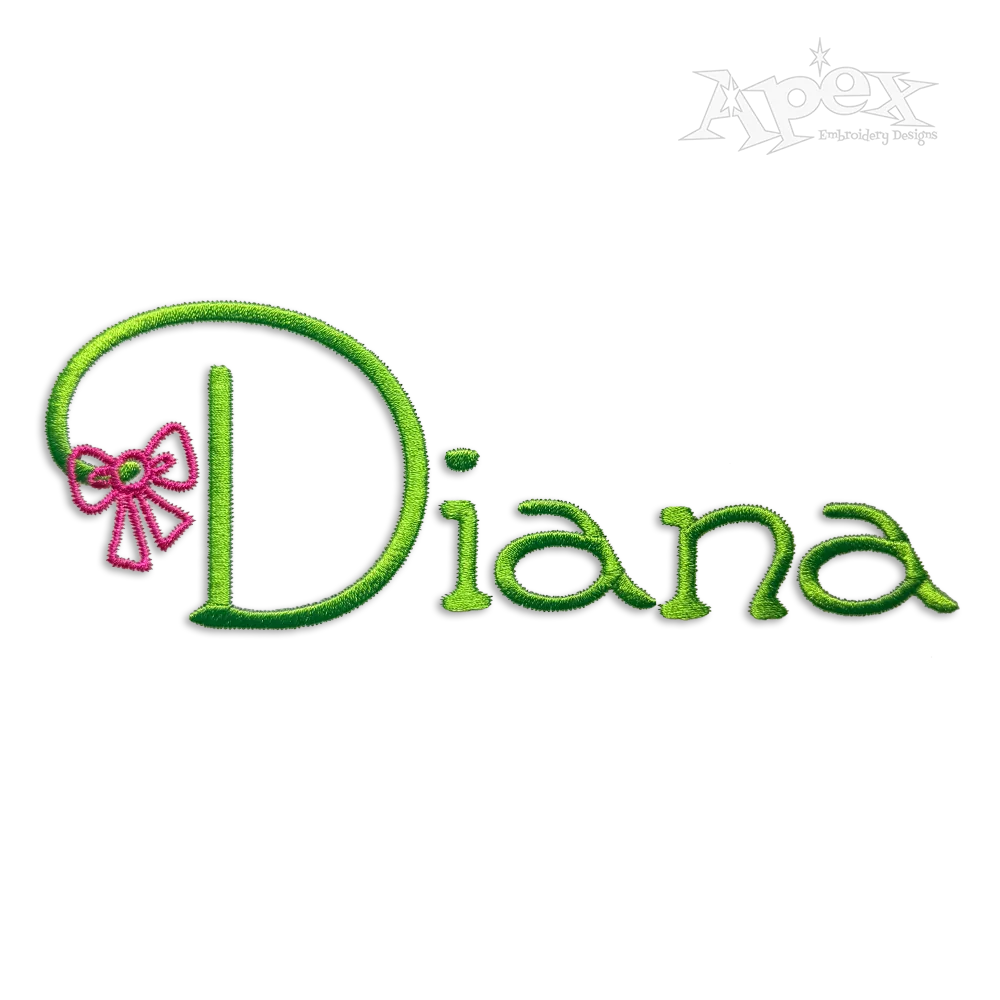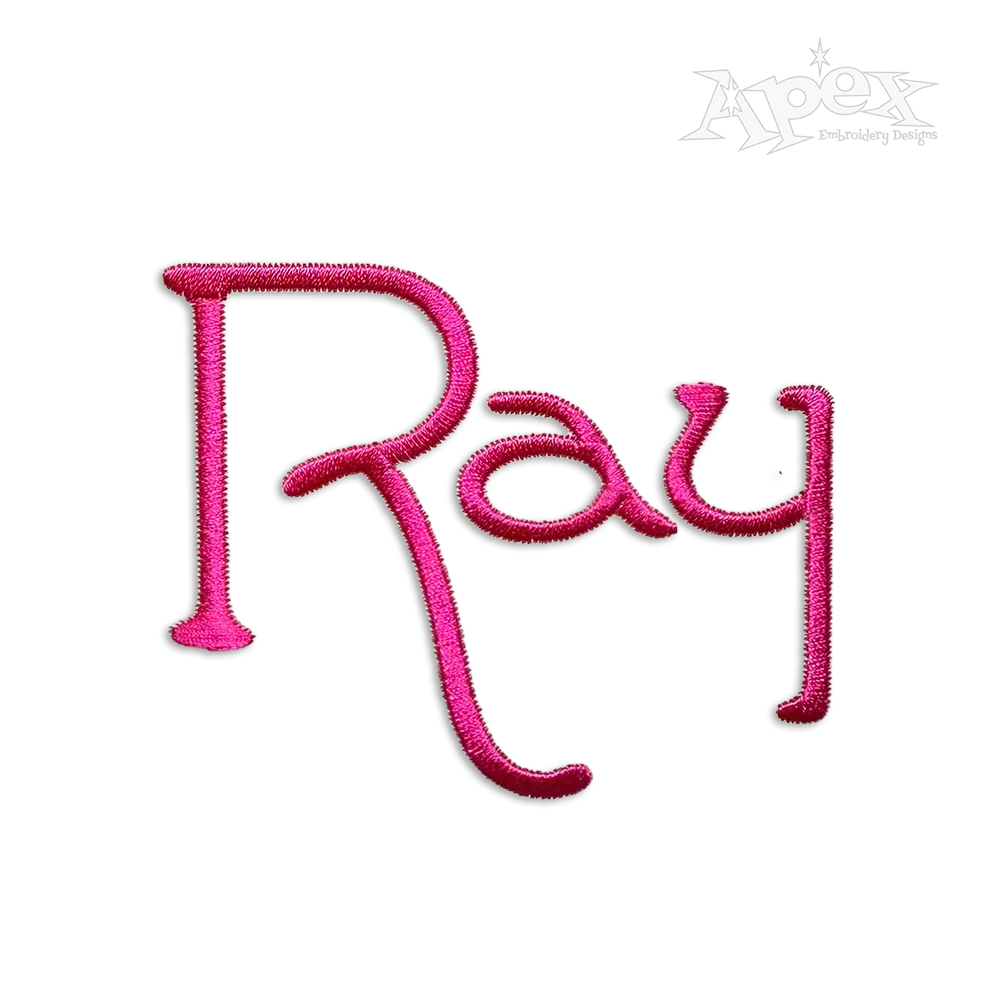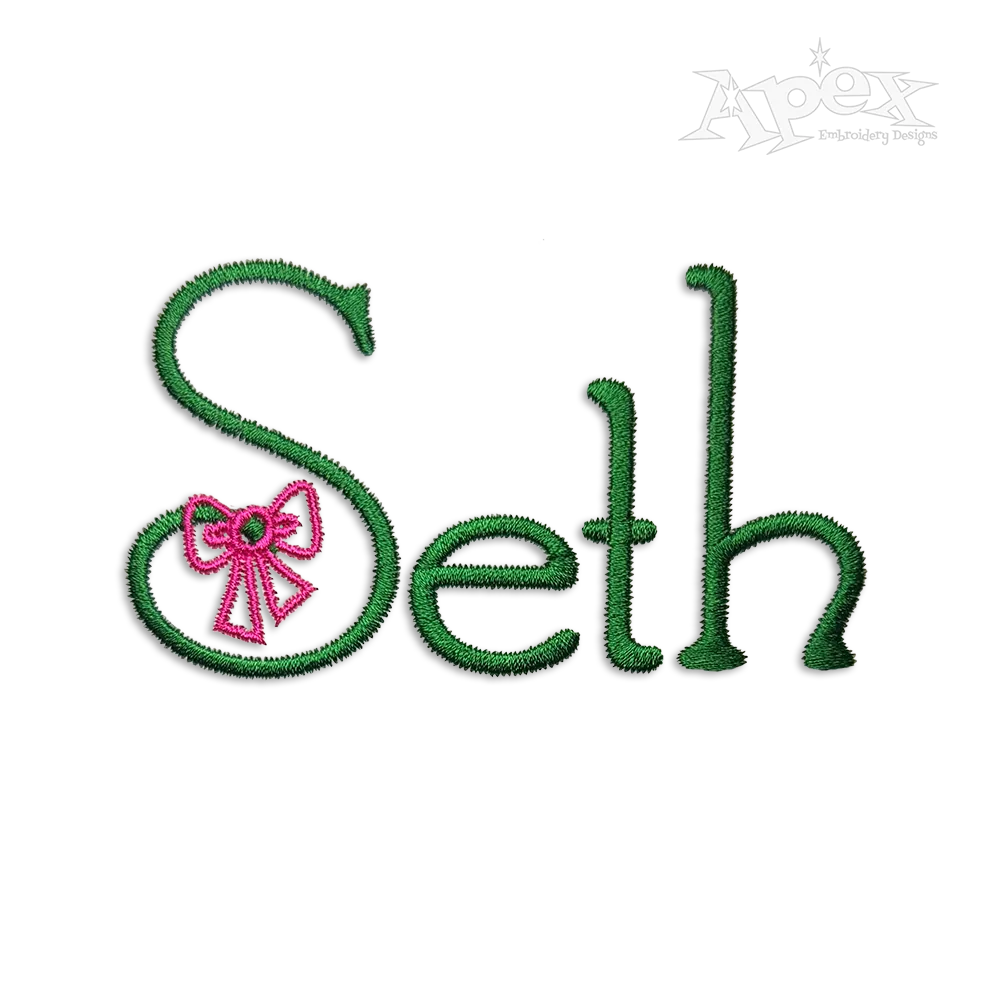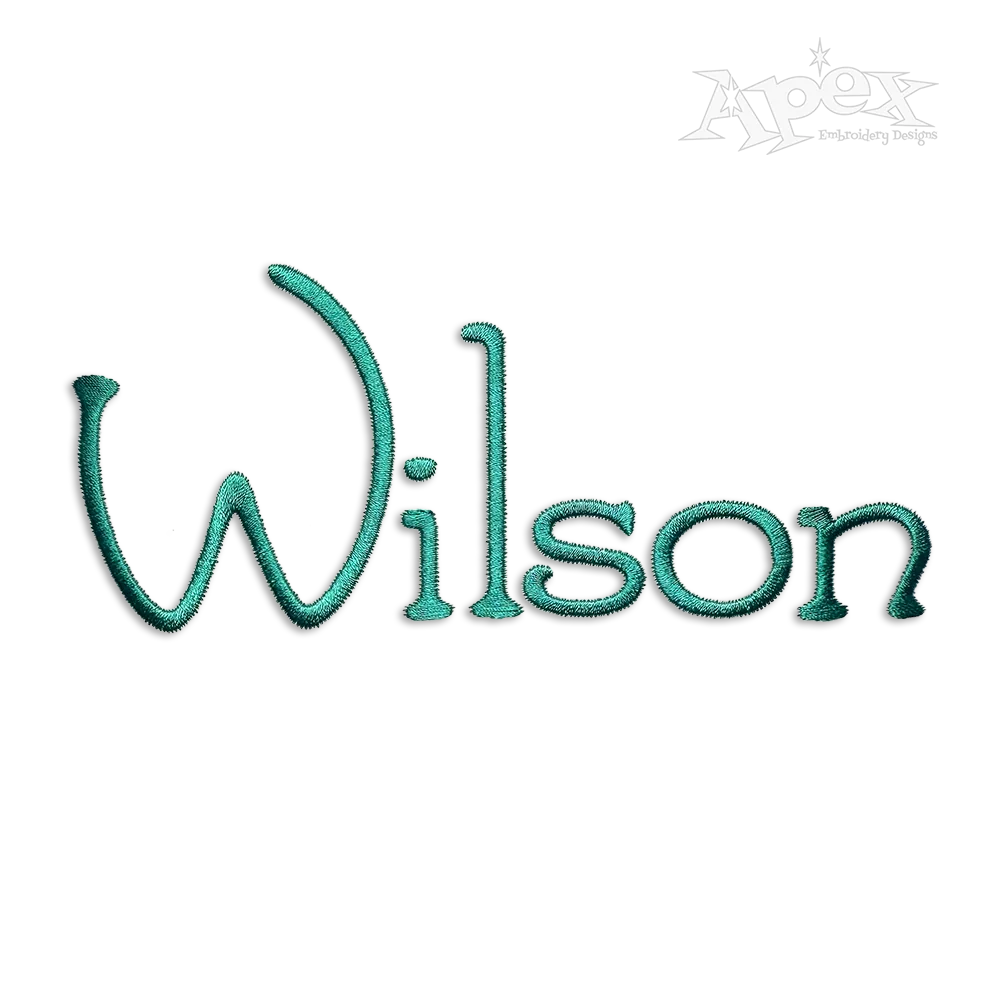
Santa Sleigh Christmas Embroidery font
Capturing the playful anticipation of Christmas Eve, the Santa Sleigh Christmas embroidery font was artisan-digitized to infuse warmth, crispness, and storybook cheer into your holiday textiles. Recognizing that festive monograms often require a balance of impeccable legibility and seasonal magic, we intentionally sculpted clean, beautifully balanced letterforms complemented by a whimsical suite of standalone accents—including cheerful dots, stitched bows, and miniature gift boxes. The result is a versatile satin stitch alphabet that invites you to build personalized holiday vignettes, whether you are crafting for intimate family traditions or bespoke holiday gifting.
Project Ideas for Santa Sleigh Christmas Embroidery Font
The clean lines and modular festive accessories make this collection endlessly adaptable for bespoke holiday stitching:
- Heirloom Velvet & Linen Stockings: Embroider family names across cuff trims in rich metallic or silk-sheen thread, framed by tiny stitched bows.
- Holiday Breakfast Table Linens: Compose personalized monograms on the corner diagonal of hemstitched linen dinner napkins and runners for a spirited holiday tablescape.
- Children’s Christmas Pajamas & Loungewear: Stitch names or initials paired with stitched gift boxes across cozy flannel button-downs or waffle knit loungewear.
- Bespoke Oversized Santa Sacks: Use the prominent 3-inch sizing to stitch bold, personalized gift delivery bags adorned with cascading gift boxes and dot accents.
- Hostess & Gifting Accents: Create charming custom canvas wine totes, ribbon-tied cocktail napkins, and personalized towel sets for festive holiday gatherings.
To showcase the tailored clarity of this collection, deliberate placement ensures each personalized piece looks professionally executed:
- Cuff & Hem Alignments: On stocking cuffs and sleepwear sleeves, center the lettering 0.75 to 1 inch above the finished folded edge for maximum visibility.
- Napkin Corner Diagonals: Angle names or monograms at 45 degrees, positioning the center of the design approximately 2.5 inches inward from the corner hem for an elegant drape.
- Center-Chest Layouts: For youth tees and holiday sweatshirts, center the design horizontally and position the top of the lettering 2 to 3 inches below the crew neckline collar.
- Decorative Vignette Framing: Position your primary monogram first, then freely flank the top or baseline corners with the included companion bow or gift box motifs to create custom emblem layouts.
Santa Sleigh Christmas Embroidery Font Craft & Letterform Details
Digitizing typography for holiday textiles demands thoughtful consideration of underlay and satin direction. For the Santa Sleigh alphabet, we selected clean, unencumbered strokes that glide through dense terry, textured velvets, and smooth cottons with equal poise. By keeping the core letter stems architectural and unfussy, each letter maintains impeccable readability from across the room without feeling heavy or crowded.
The companion motifs—delicate gift packages with satin ribbons, tidy bows, and festive dots—were digitized with density values that ensure full, rich coverage while preventing needle deflection. When stitched in tonal palettes or traditional holly reds, spruce greens, and shimmering golds, the satin columns catch festive light beautifully, transforming every sewn piece into a cherished seasonal heirloom.